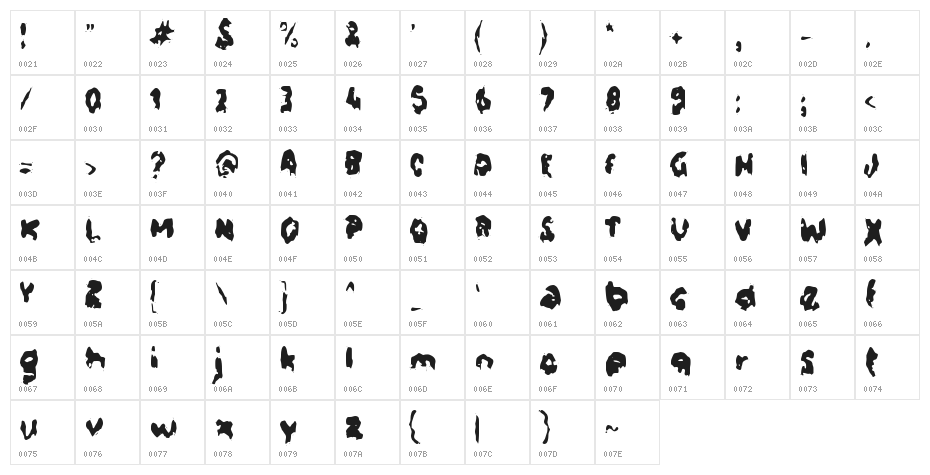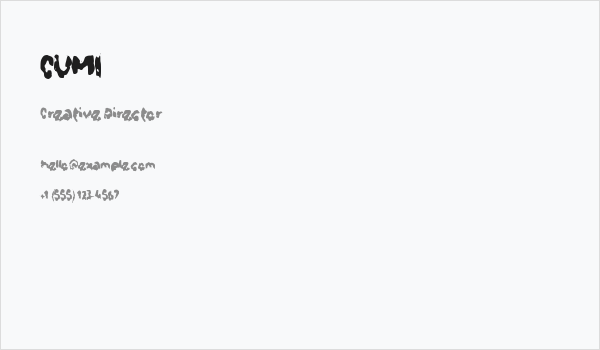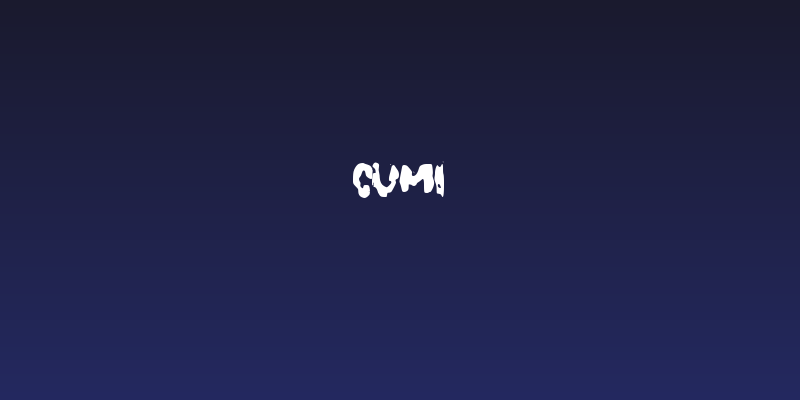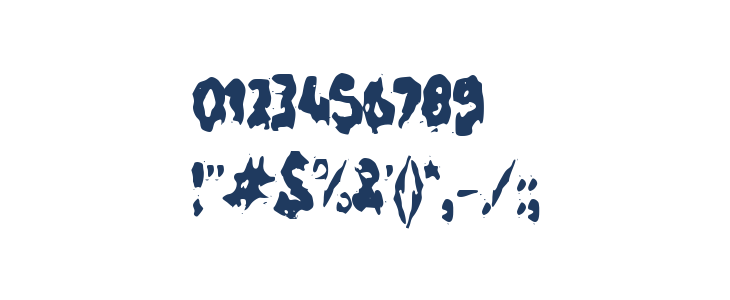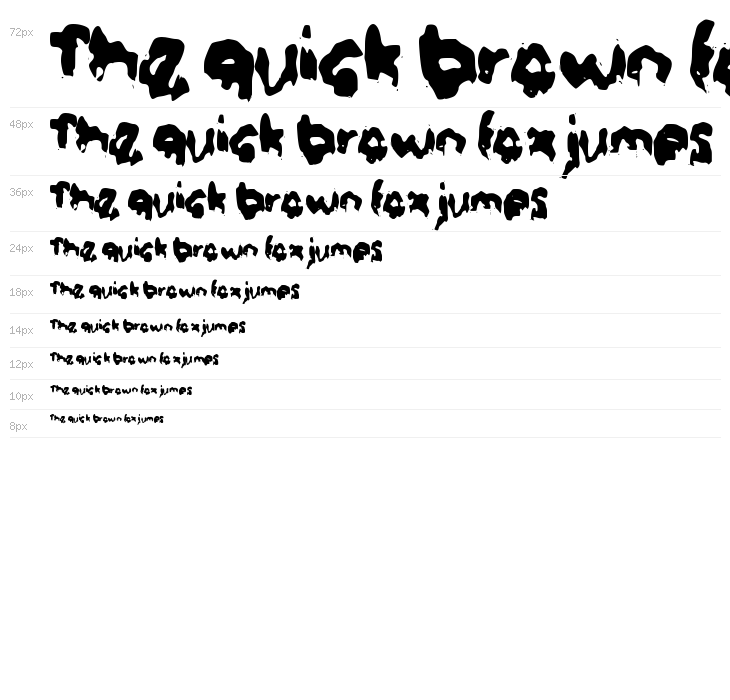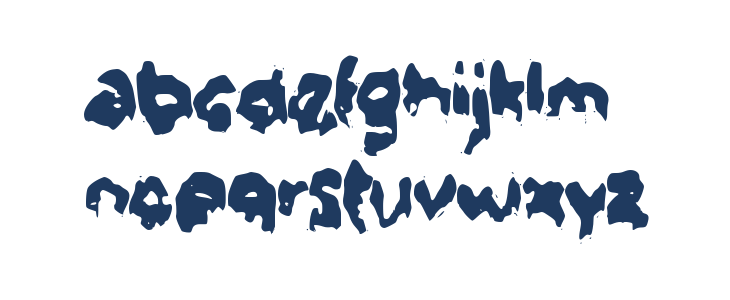
CUMI Font
CUMI Description
This font features a highly irregular and organic design, reminiscent of ink splatters or melted wax. The characters are bold and have a unique, artistic flair, with uneven edges and varying thicknesses throughout each letter. The uppercase and lowercase letters maintain a consistent style, with a playful yet chaotic appearance. Numbers and special characters follow the same design principles, adding to the font's cohesive yet unpredictable nature. This font stands out due to its unconventional and eye-catching style, making it suitable for creative and bold design projects.
| Proposed Projects | Ideal for artistic posters, album covers, edgy branding, and creative digital art. |